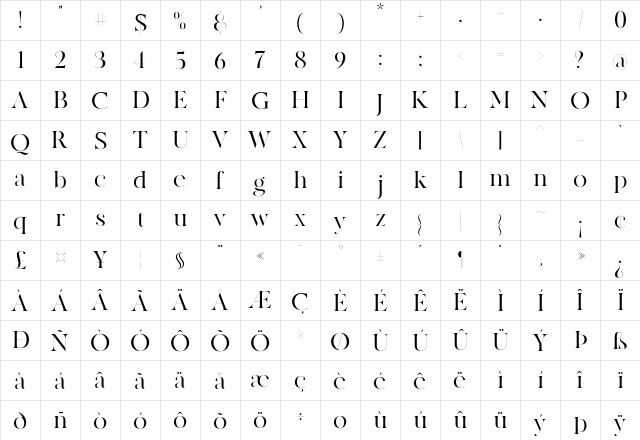
MADE Canvas Regular
| Foundry | MadeType |
| Designer | MadeType |
Design Context for MADE Canvas Typeface
MADE Canvas is a composed and adaptable typeface that performs quietly and consistently across a wide range of design contexts.